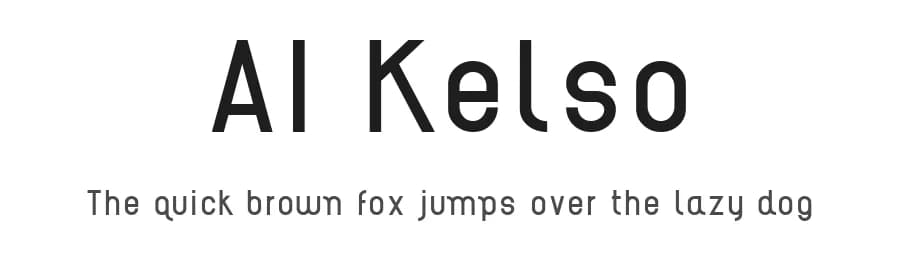
About AI Kelso Font
AI Kelso is a sans-serif font designed by Ritchtype. It includes 148 glyphs, a regular weight, TTF (TrueType) format, and 104 languages. AI Kelso is free to download; check the license details on this page before commercial use. Sans-serif fonts like AI Kelso work best for clean body text, user interfaces, branding, and modern layouts.
AI Kelso Font is a versatile sans-serif font that works for both headings and body text. Pair it with a contrasting serif or slab serif font to add visual interest and a clear distinction between titles and body copy.
AI Kelso Font